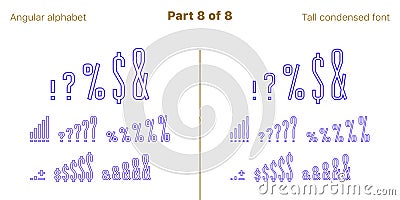
Condensed outlined sans serif font Angular, Vector #143515218
Condensed outlined sans serif font, Angular. Vector blue typefaces, Part 8 of 8. Set of tall uppercase alphabet with narrow letters, numbers and symbols. For poster and brochure headlines